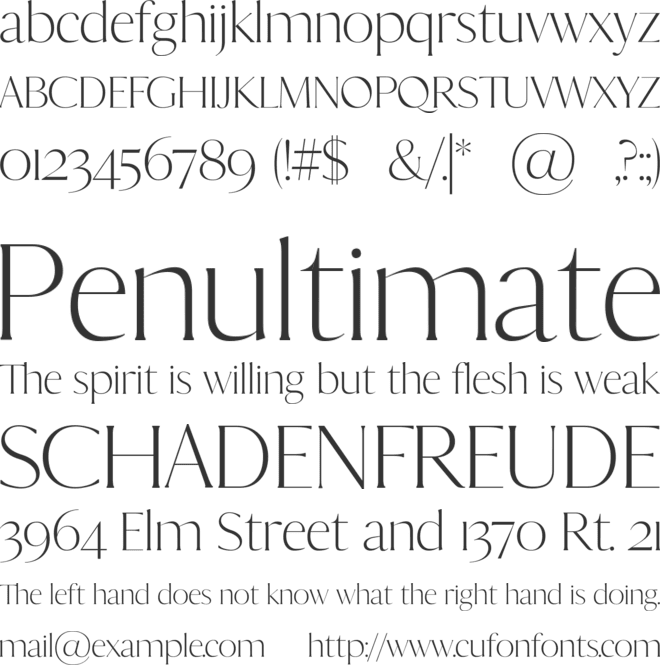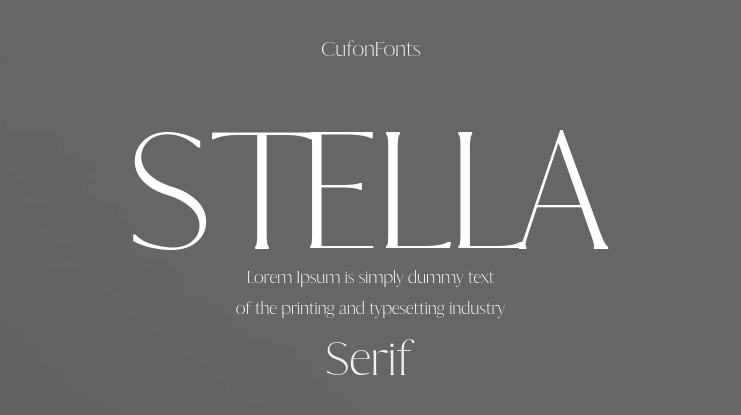
🎨 Font Name: STELLA by Minimalist Art Studio
🎨 Font description: Stella is a delicate serif with multilingual support—perfect for elegant branding, editorial layouts, and minimalist packaging.
✨ This is a LITE version (A–Z, lowercase, numbers, punctuation) to give you a taste of the full family.